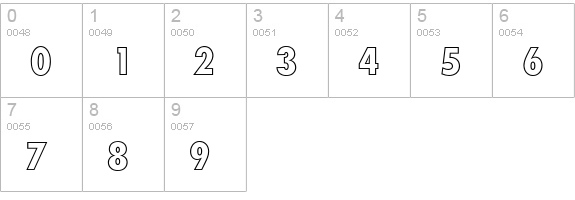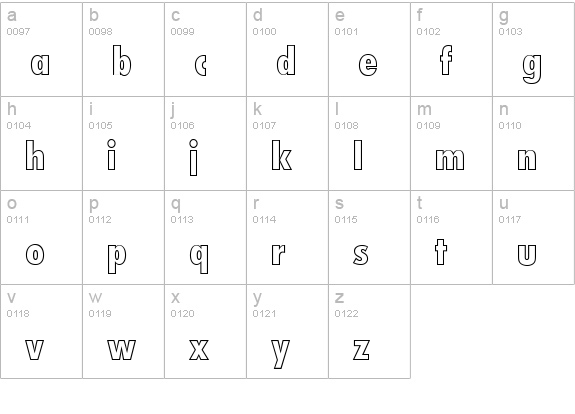
Futura Condensed Extra Bold Outline Font Details
Futura Condensed Extra Bold Outline is a strong, high-contrast, condensed-width variant in the Futura typeface family \xE2\x80\x94 well suited to headlines, attention-grabbing titles, and strong calls-to-action.